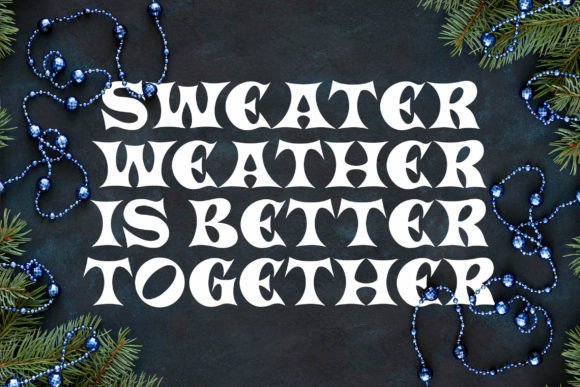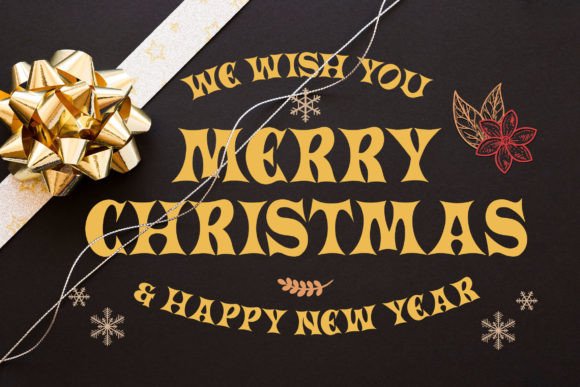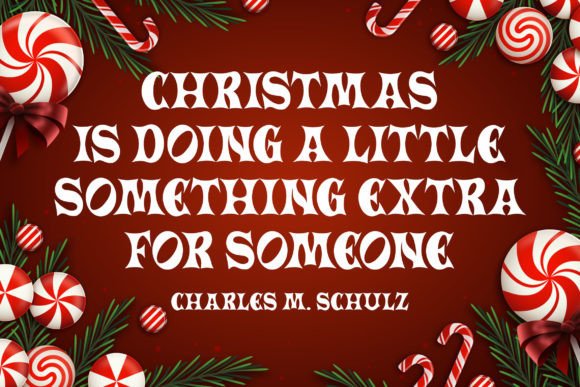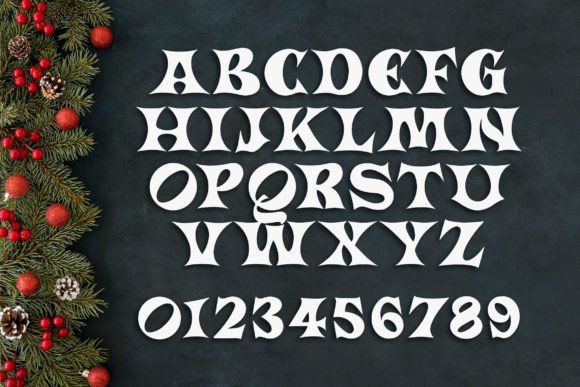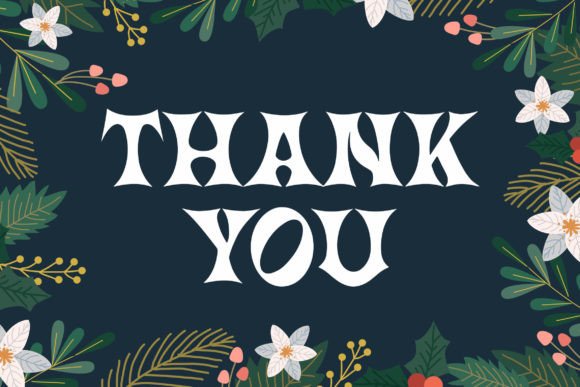
Introducing Black Santa Font: A Festive Gothic-Style Display Font
Are you looking for a font that captures the essence of the winter season? Do you want to add a touch of elegance and festivity to your designs? Look no further than the Black Santa Font, a splendid Gothic-style display font that’s perfect for all your winter-themed projects!
What is Black Santa Font?
Black Santa Font is a unique and stylish font that’s designed to evoke the spirit of the holiday season. With its Gothic-style lettering and subtle festive vibe, this font is sure to add a touch of sophistication and elegance to any design. Whether you’re working on a Christmas card, a holiday-themed poster, or a winter-inspired craft project, Black Santa Font is the perfect choice.
Key Features of Black Santa Font
- Gothic-style lettering: Black Santa Font features a distinctive Gothic-style lettering that’s perfect for adding a touch of drama and elegance to your designs.
- Subtle festive vibe: This font has a subtle festive vibe that’s perfect for winter-themed projects. The letters are designed to evoke the spirit of the holiday season without being too over-the-top.
- Display font: Black Santa Font is a display font, which means it’s designed to be used at larger sizes. It’s perfect for headlines, titles, and other design elements that need to make a statement.
Uses for Black Santa Font
Black Santa Font is a versatile font that can be used for a wide range of projects, including:
- Christmas cards and invitations: Add a touch of elegance and sophistication to your holiday cards and invitations with Black Santa Font.
- Holiday-themed posters and flyers: Use Black Santa Font to create eye-catching posters and flyers for your holiday events and promotions.
- Winter-inspired craft projects: Add a touch of festivity to your craft projects, such as handmade cards, gift tags, and decorations.
- Social media graphics: Use Black Santa Font to create festive social media graphics, such as holiday-themed Facebook posts and Instagram stories.
Tips for Using Black Santa Font
Here are a few tips for using Black Santa Font in your designs:
- Use it sparingly: Because Black Santa Font is a display font, it’s best to use it sparingly. Use it for headlines and titles, and a simpler font for body text.
- Experiment with colors: Black Santa Font looks great in a variety of colors, including metallic colors like gold and silver. Experiment with different colors to find the one that works best for your design.
- Pair it with other fonts: Black Santa Font can be paired with other fonts to create a unique and interesting design. Try pairing it with a simple sans-serif font for a bold and modern look.
Black Santa Font is a stylish and versatile font that’s perfect for all your winter-themed projects. With its Gothic-style lettering and subtle festive vibe, this font is sure to add a touch of elegance and sophistication to any design. Whether you’re a designer, crafter, or DIY enthusiast, Black Santa Font is a great choice for anyone looking to add a touch of festivity to their designs.